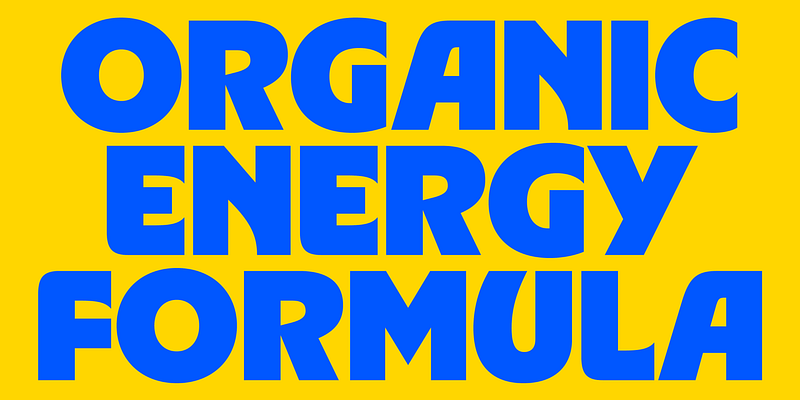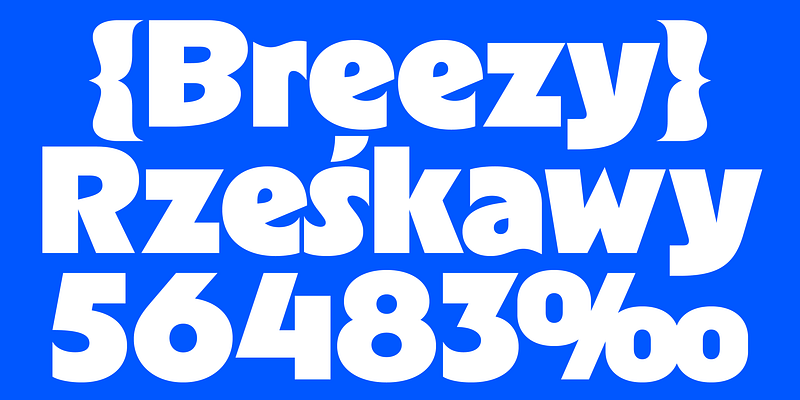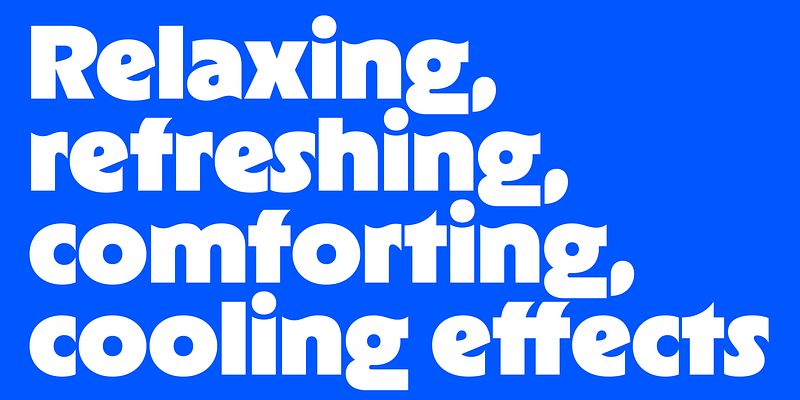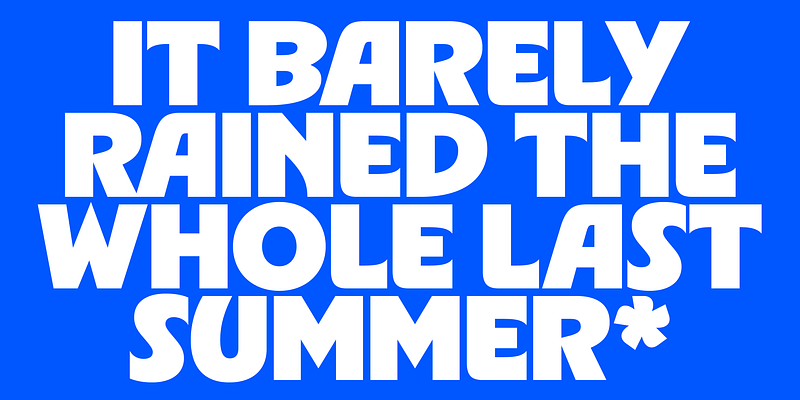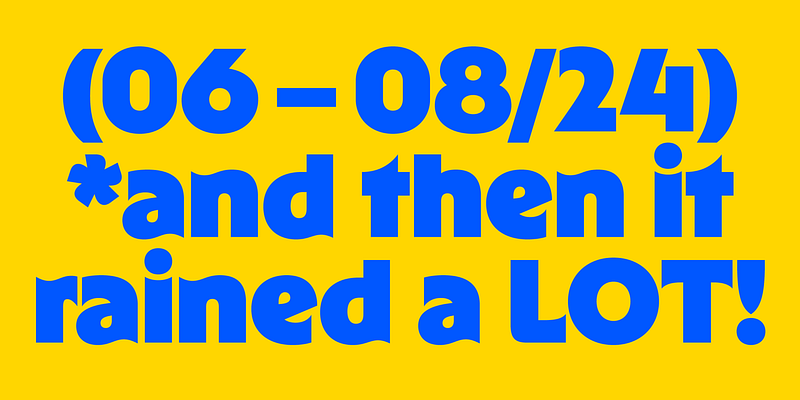
RL Aqva is a vibrant typeface designed with display use in mind. With its cheerful personality, it blends a modern graphic sensibility with historical influences, drawing inspiration from iconic humanist typefaces and the golden era of phototypesetting. It pays homage to representatives like Revue, Marvin, or ITC Busorama.
The typeface features organic yet simplified forms that create a strong visual impact. This bold design language is further emphasised in the capital letters, where the asymmetric construction of characters like ‘A’ and ‘Y’ adds a playful dynamic, balanced by the forward-reaching shapes of ‘R’, ‘S’, ‘D’, and ‘B’. RL Aqva does not fear occasional overlapping characters to create dense, cohesive blocks of display text, perfect for eye-catching headlines or bold visual statements.